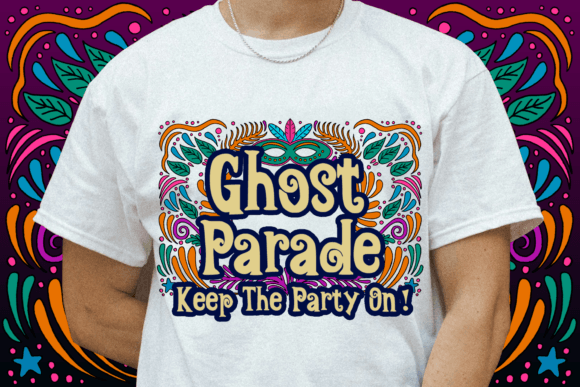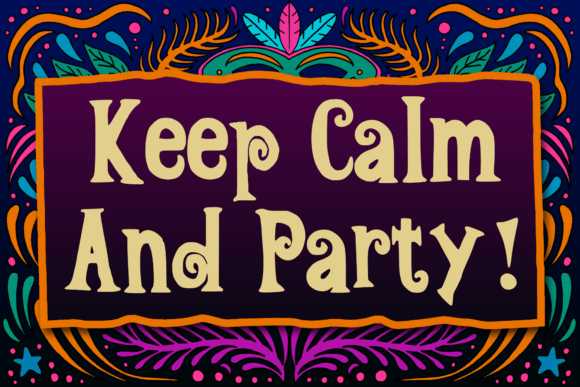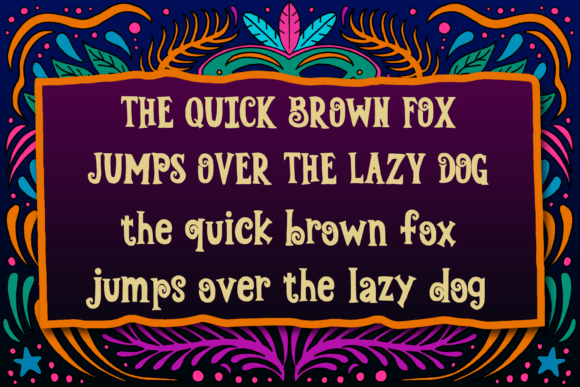
Introduction to Ghost Parade Font
Ghost Parade is an playful and festive handdrawn font.
It will be perfect for your horror and Halloween-themed needs You can use it for anything ranging from merchandise like t-shirts and clothing, for your scary book designs, Halloween party needs, greeting cards, stickers, posters, banners, or anything that needs a horror touch.
Key Features of Ghost Parade Font